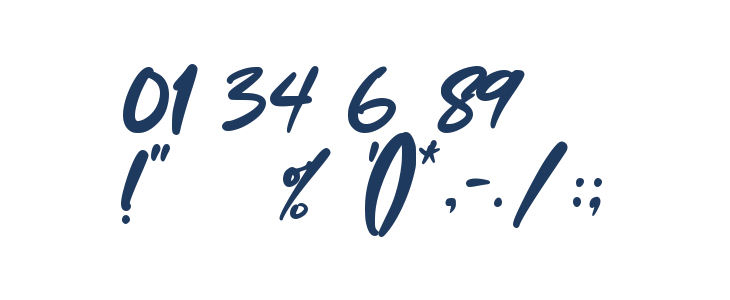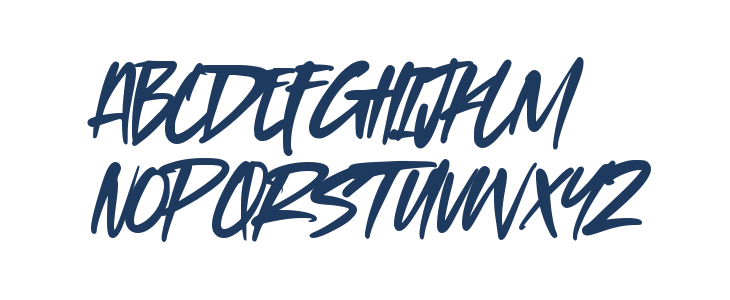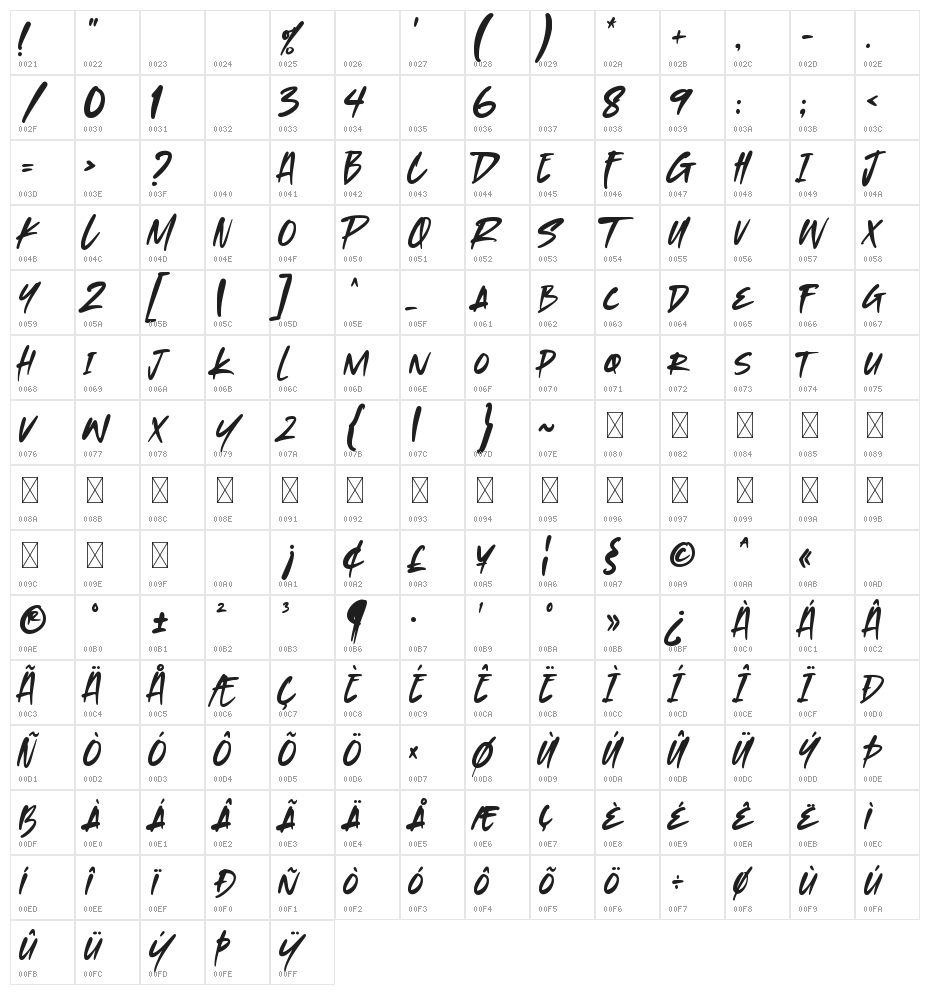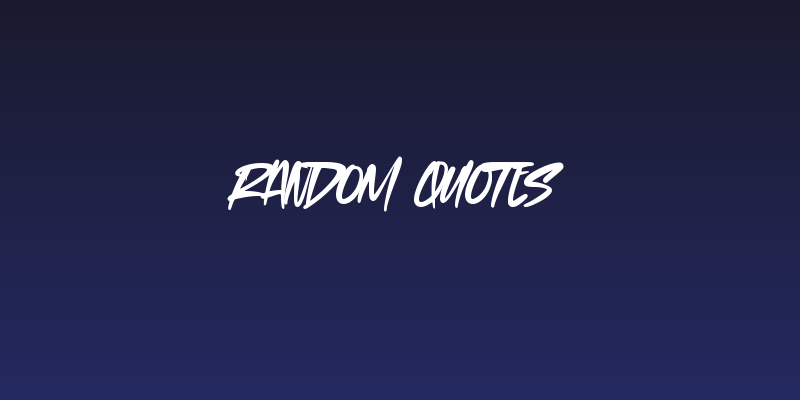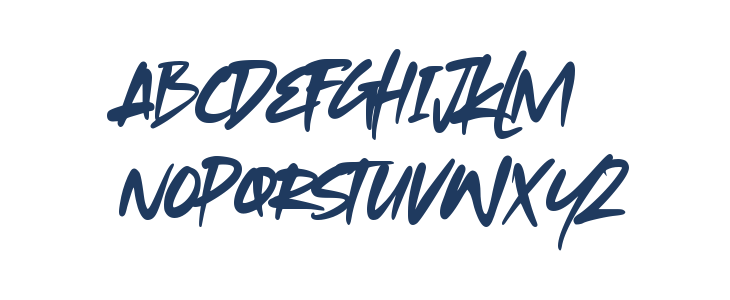
Random quotes Font
Random quotes Description
A bold, energetic handwritten script with dynamic strokes and a casual, expressive feel. The letters are slightly slanted, with variable line thickness and a natural, free-flowing rhythm. Uppercase and lowercase characters are both present, along with numerals and common punctuation.
| Overall Style | Decorative, Modern, Expressive |
| Use Case | Headlines, Logos, Quotes, Posters |
| Proposed Projects | Posters, social media graphics, branding, quotes, merchandise, informal invitations. |